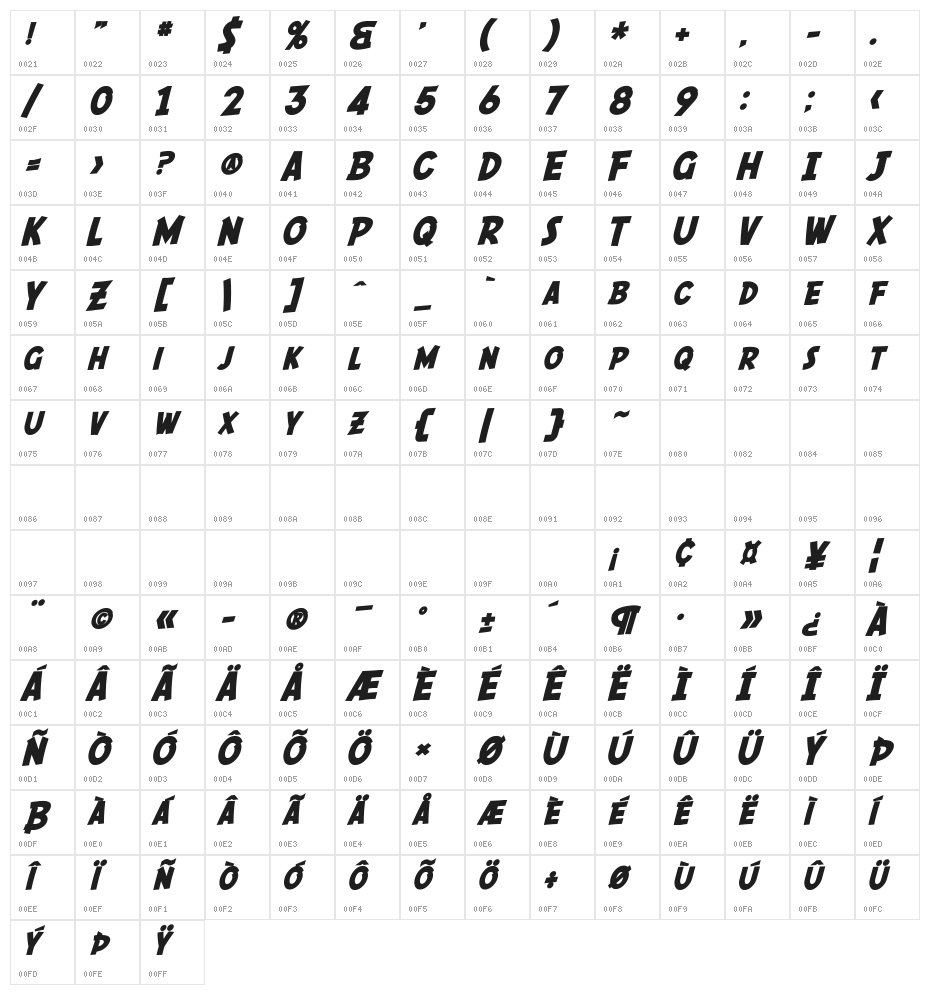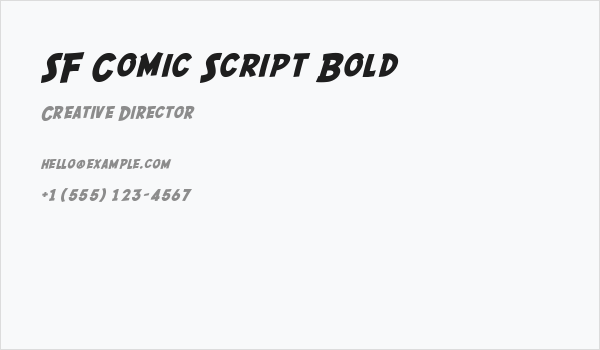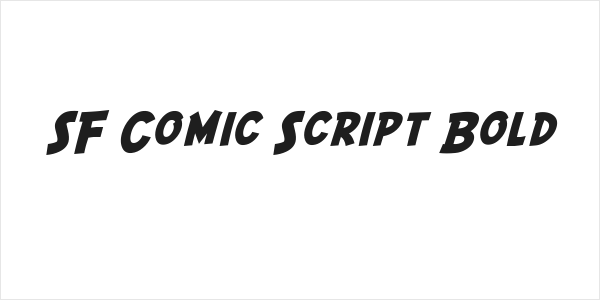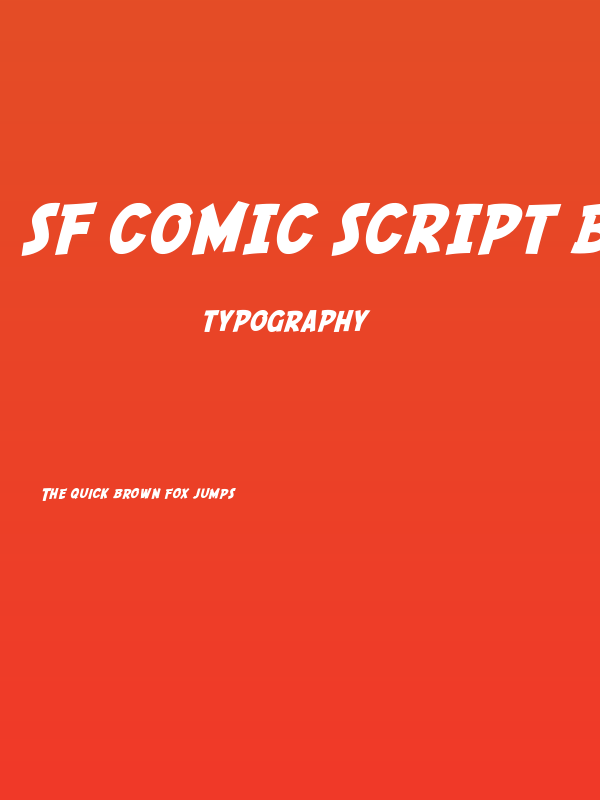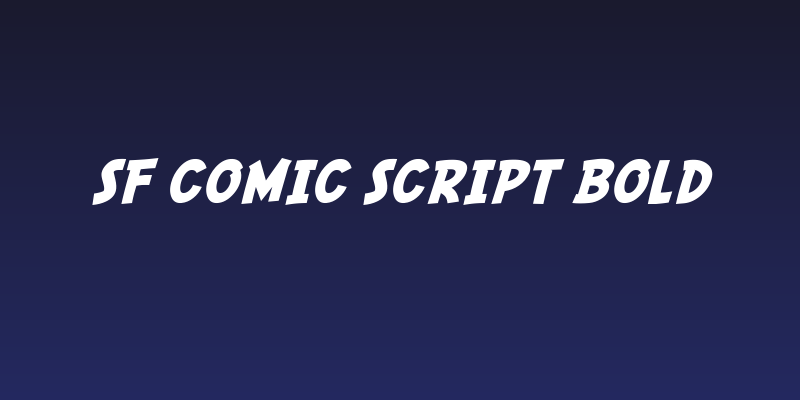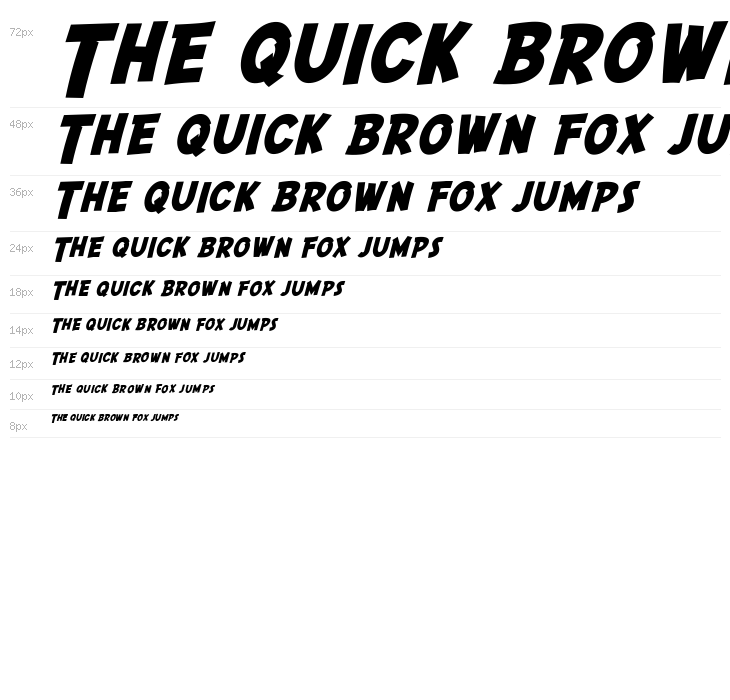
SF Comic Script Bold Font
SF Comic Script Bold Description
This font features a bold and dynamic style, characterized by thick strokes and a playful, comic-inspired appearance. The letters are slightly slanted, giving a sense of movement and energy. The uppercase and lowercase letters maintain a consistent boldness, making them highly legible and impactful. The numbers and special characters follow the same bold and energetic design, ensuring a cohesive look across all text elements. The font's style is reminiscent of comic book lettering, making it ideal for projects that require a fun and engaging visual appeal.
| Overall Style | Playful, Comic |
| Proposed Projects | Ideal for comic books, children's books, playful branding, and posters. |